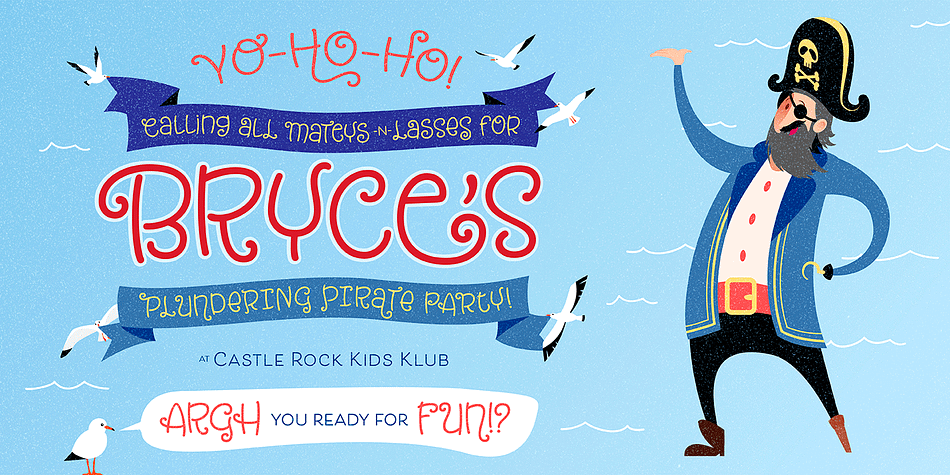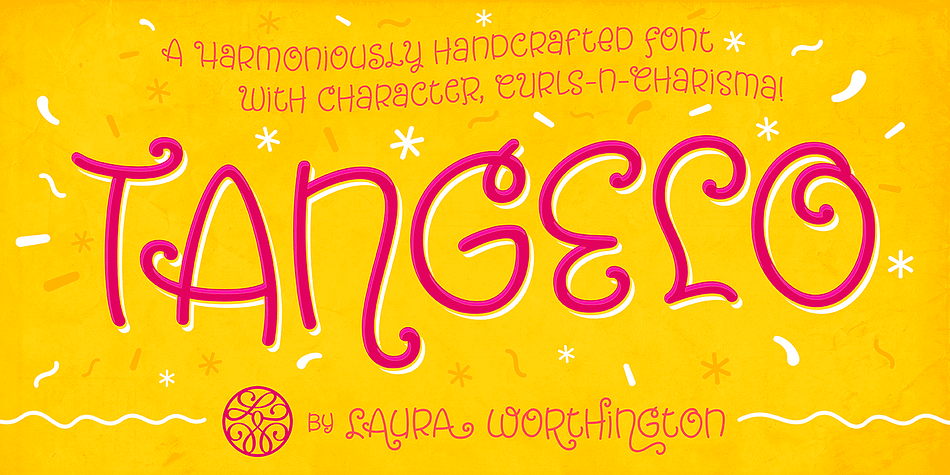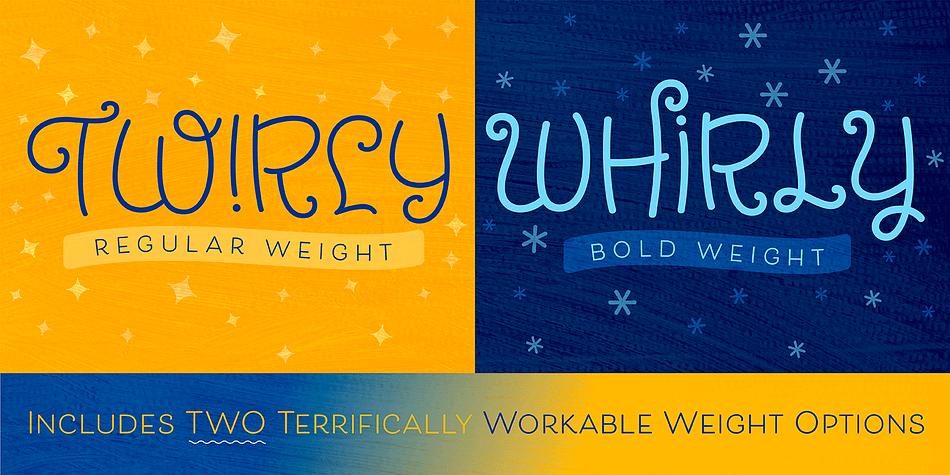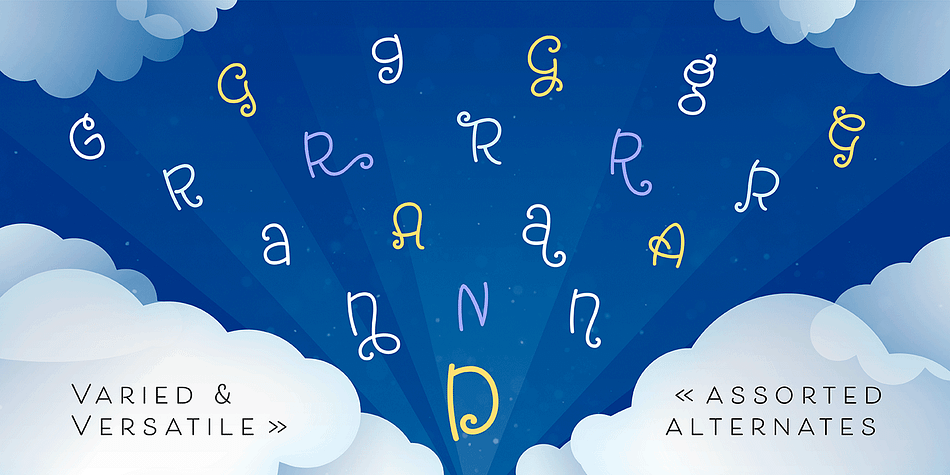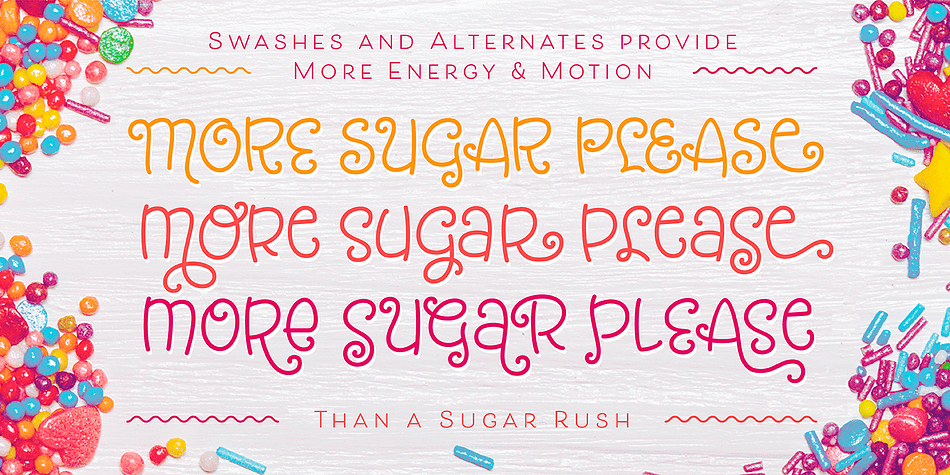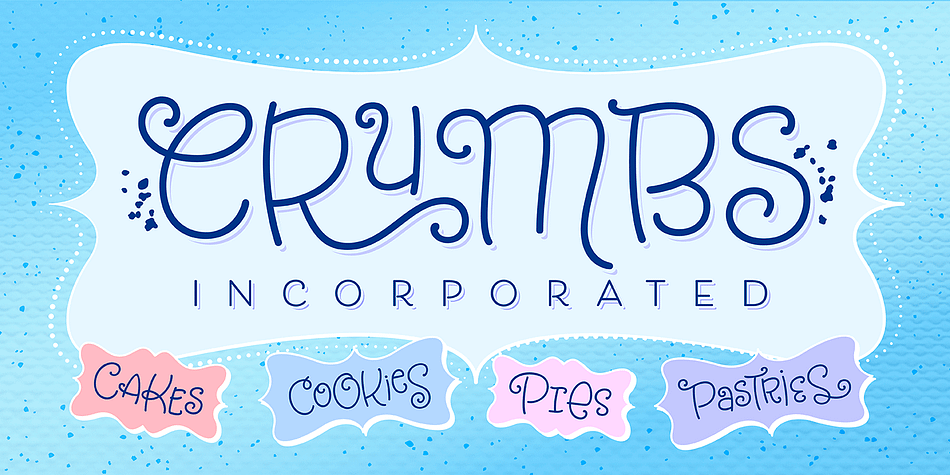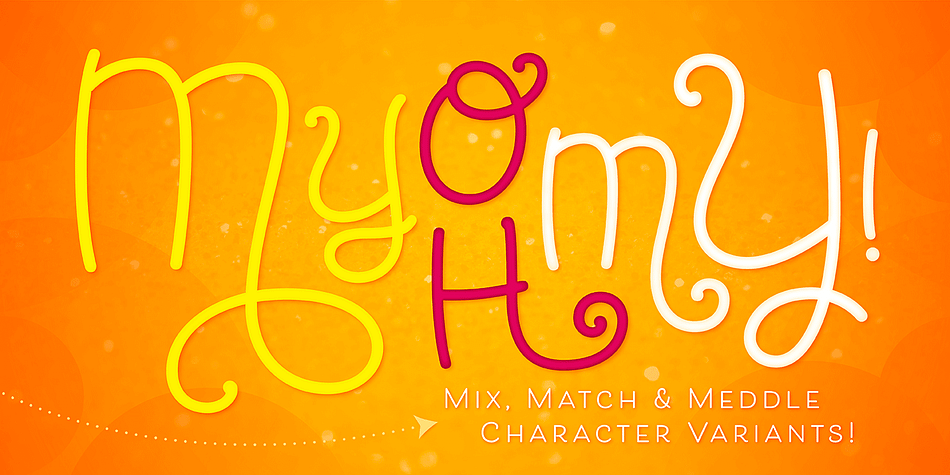
Designed by Laura Worthington, Tangelo is a hand drawn and kids font family. This typeface has two styles and was published by Laura Worthington.
We all learned in school: thou shalt not set script faces in uppercase! … unless, that is, they’re Tangelo. Tangelo is a fun, casual display script that could be more accurately termed a unicase – it borrows characters liberally from the lower case, but scales them up to cap-size. Tangelo is ideal for kid-friendly products like candy packaging, game boards or apps, and clothing labels. It includes 115 alternates and swash characters for a convincingly hand-lettered look.